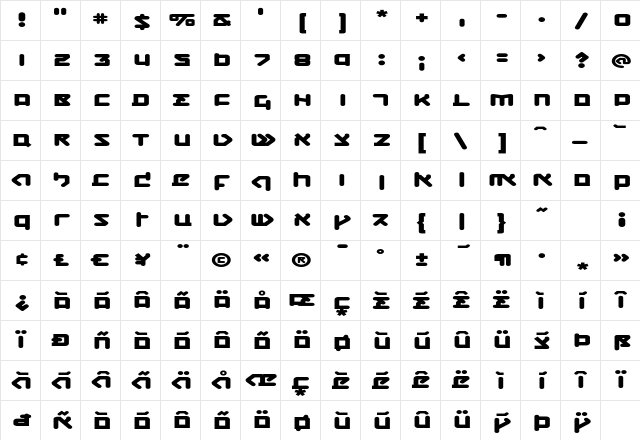
CQN-Molecular-DynamoBold Regular Free Font
CQN-Molecular-DynamoBold Regular
Design Context for CQN-Molecular-DynamoBold
CQN-Molecular-DynamoBold is a composed and adaptable typeface that performs quietly and consistently across a wide range of design contexts. Its bold stroke weight gives it real presence on the page.